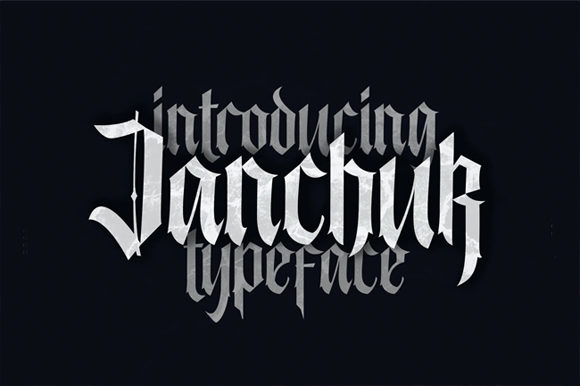
Introducing Janchuk, the Bold and Enchanting Blackletter Font
Journey into the realm of captivating typography with Janchuk, a font that exudes boldness and authenticity. Immerse yourself in the beauty of blackletter, a timeless style that adds a touch of mystique to any design.
With Janchuk, your creative ideas will leap off the page, demanding attention from all who behold them. This font is a symphony of sharp lines and elegant curves, creating a visual feast that is sure to leave a lasting impression.
Unleash the Power of Janchuk
Whether crafting eye-catching posters, mesmerizing logos, or enthralling invitations, Janchuk is your ultimate companion. Its versatility knows no bounds, allowing you to weave your creative magic across a myriad of projects.
Step into the Spotlight with Janchuk
As you embrace Janchuk, you'll discover a font that commands attention, making your designs shine brighter than ever before. Its bold presence will captivate your audience, leaving them spellbound by your creative brilliance.
A Font Steeped in History
Janchuk draws inspiration from the rich heritage of blackletter fonts, a style that has graced manuscripts, royal proclamations, and timeless works of art for centuries. With each letter meticulously crafted, Janchuk pays homage to the past while embracing the modern age.
Make a Statement with Janchuk
From striking headlines that demand attention to intricate designs that tell a story, Janchuk is your secret weapon for creating visuals that resonate with your audience. Its bold and authentic style will elevate your projects, leaving a lasting impression that lingers in the minds of all who encounter it.
Unlock Your Creative Potential with Janchuk
With Janchuk at your fingertips, you'll embark on a creative journey like never before. Its enchanting aura will ignite your imagination, propelling you to new heights of visual storytelling.
Embrace the Allure of Janchuk
As you delve into the world of Janchuk, you'll discover a font that captivates and inspires. Its timeless beauty will enhance your designs, transforming them into works of art that speak to the soul.